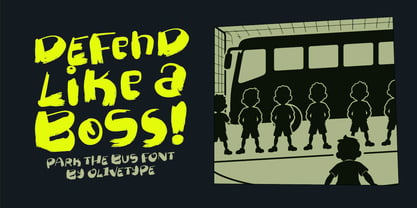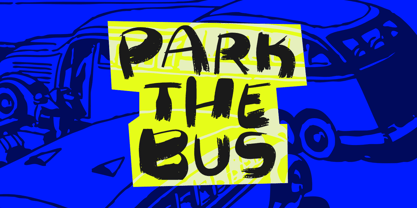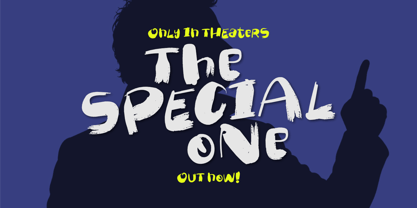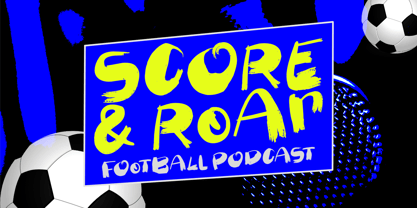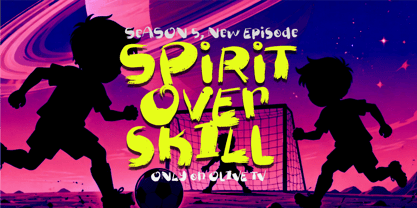
Park The Bus
por Olivetype
La familia tipográfica Park The Bus fue diseñada por Nurul Hidayani y publicada por Olivetype. Park The Bus contiene 1 estilos. Más información sobre esta familia
Park The Bus is a lively, playful handwritten brush display font bursting with personality and charm. Inspired by carefree street play and energetic game-day vibes, this font features bouncy strokes, imperfect brush textures, and a natural hand-drawn flow that feels spontaneous and full of life. With its bold yet friendly character shapes, Park The Bus Fun is perfect for kids-themed designs, sports posters, playful branding, school projects, packaging, and eye-catching social media graphics. Whether you're creating fun quotes, cheerful logos, or dynamic headlines, this font delivers a joyful, energetic punch in every letter. Bring your designs to life with a font that’s all about fun, movement, and good vibes—because sometimes, the best strategy is to park the bus and play!
Diseñadores: Nurul Hidayani
Fundición: Olivetype